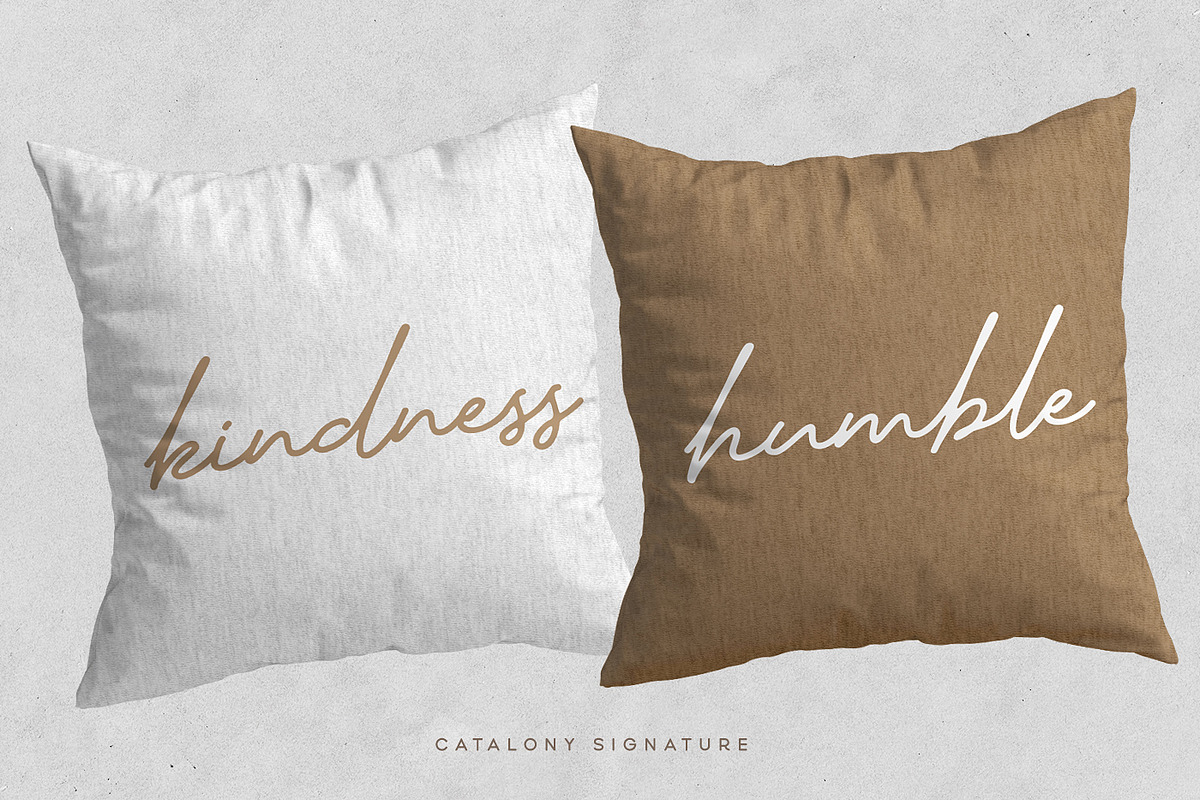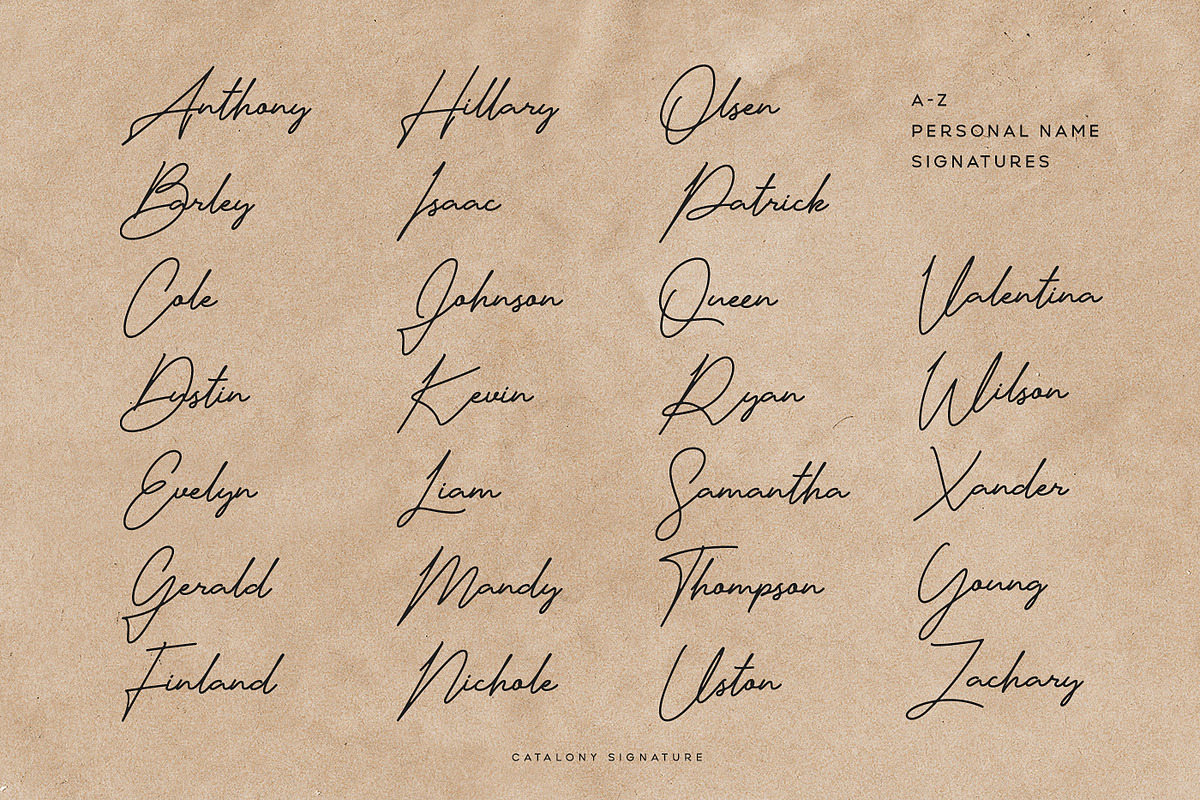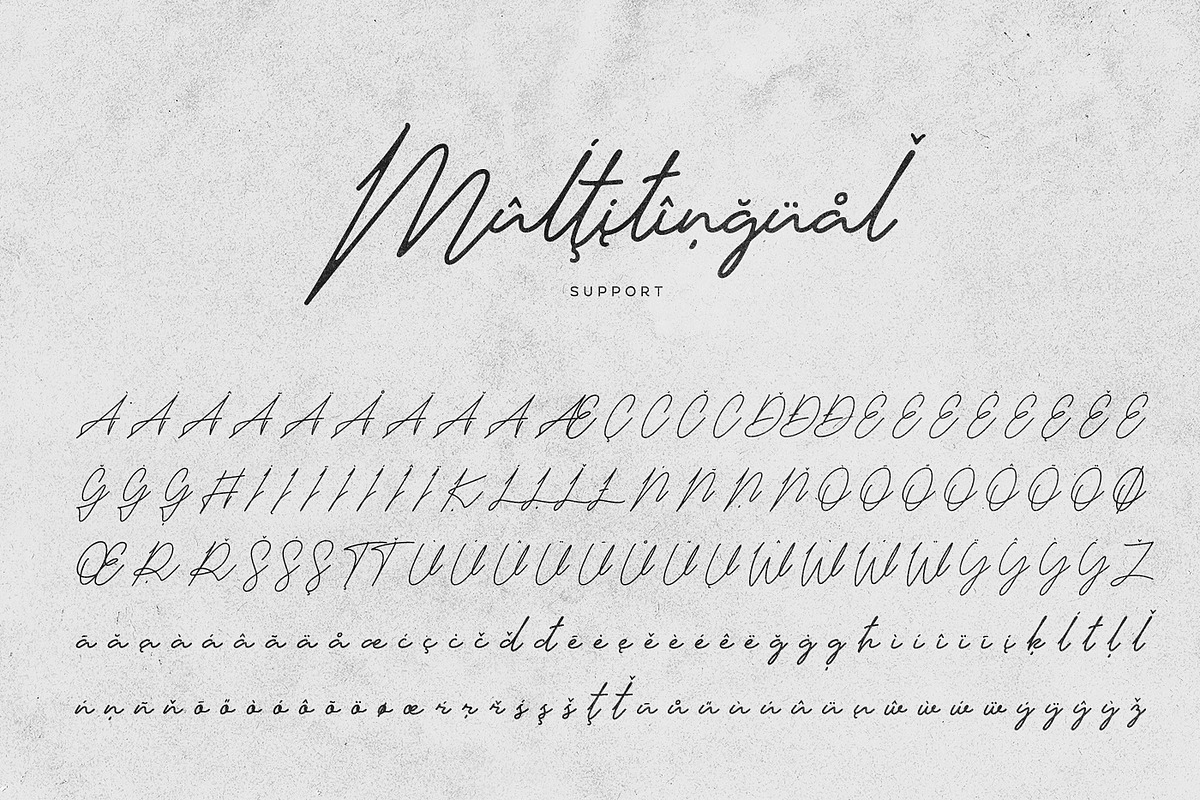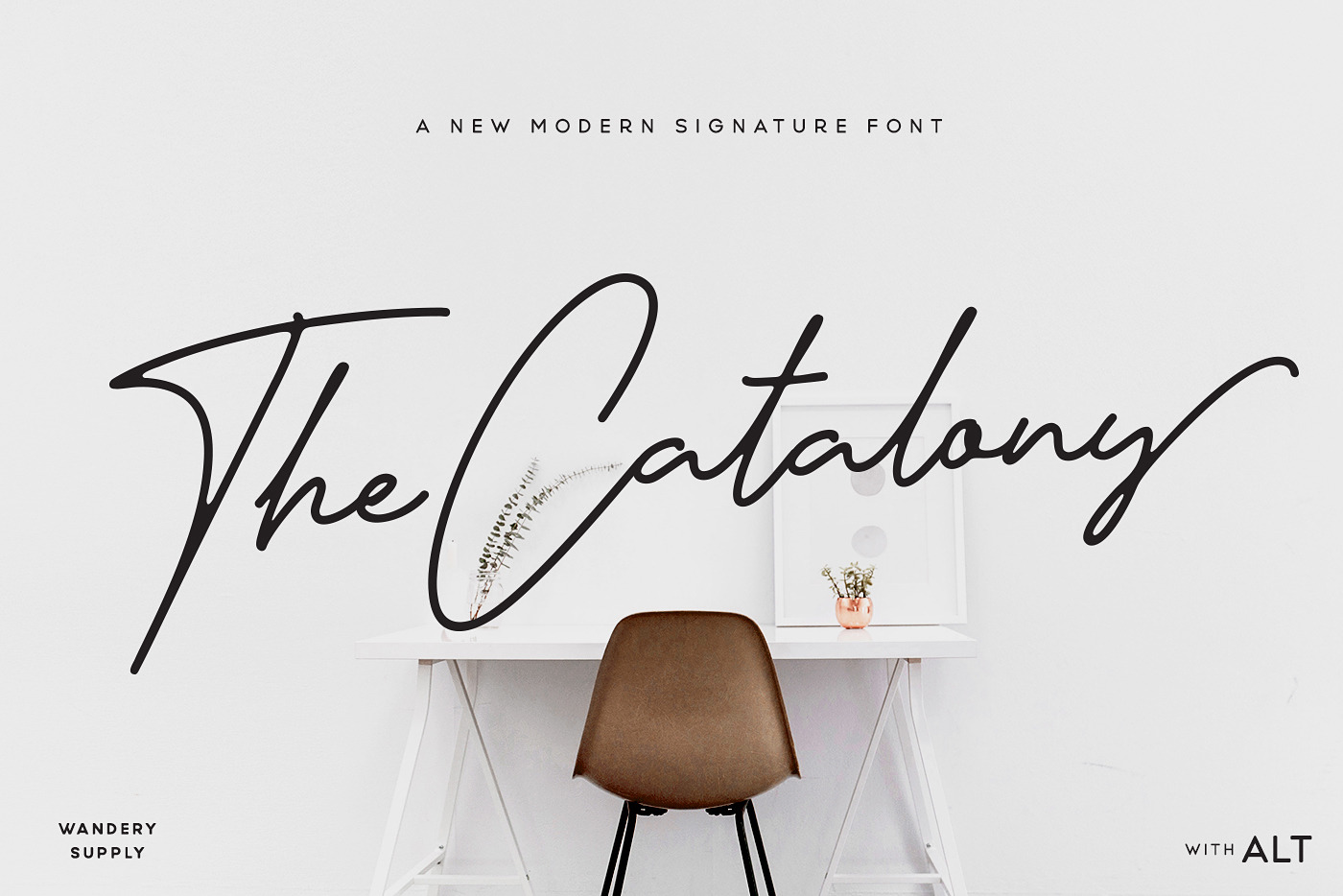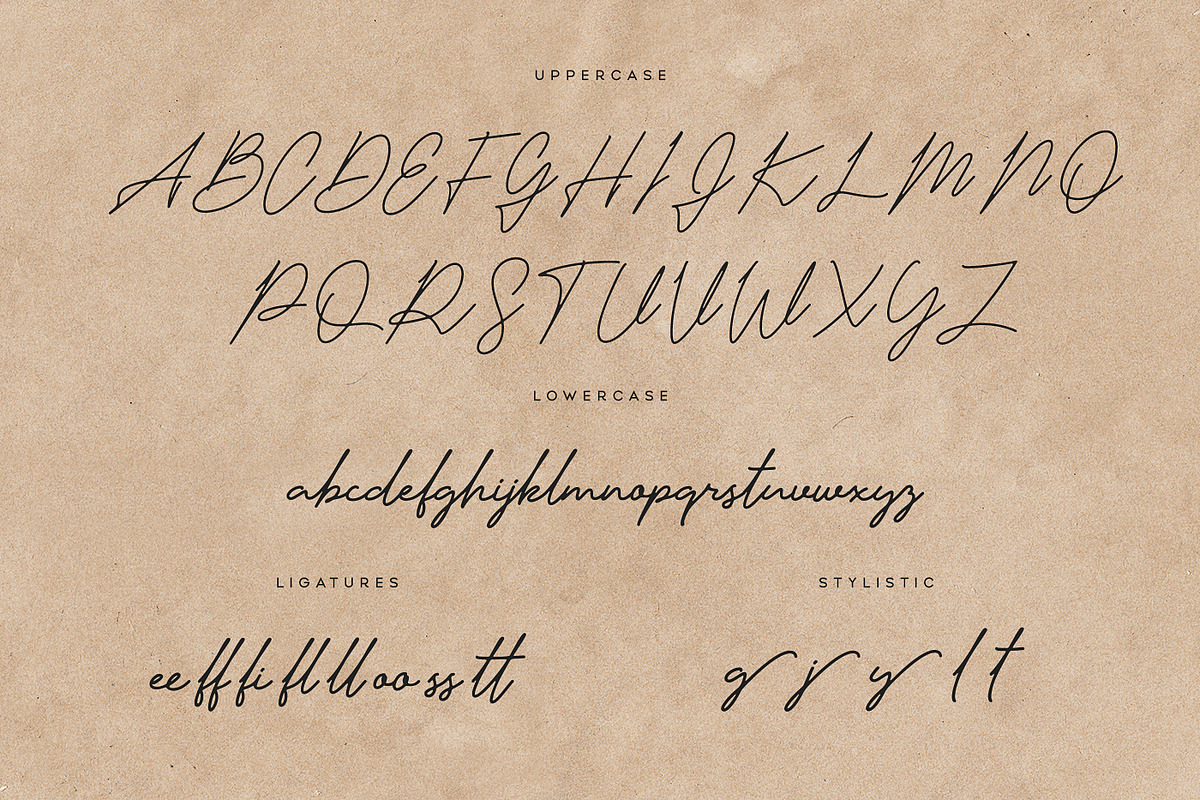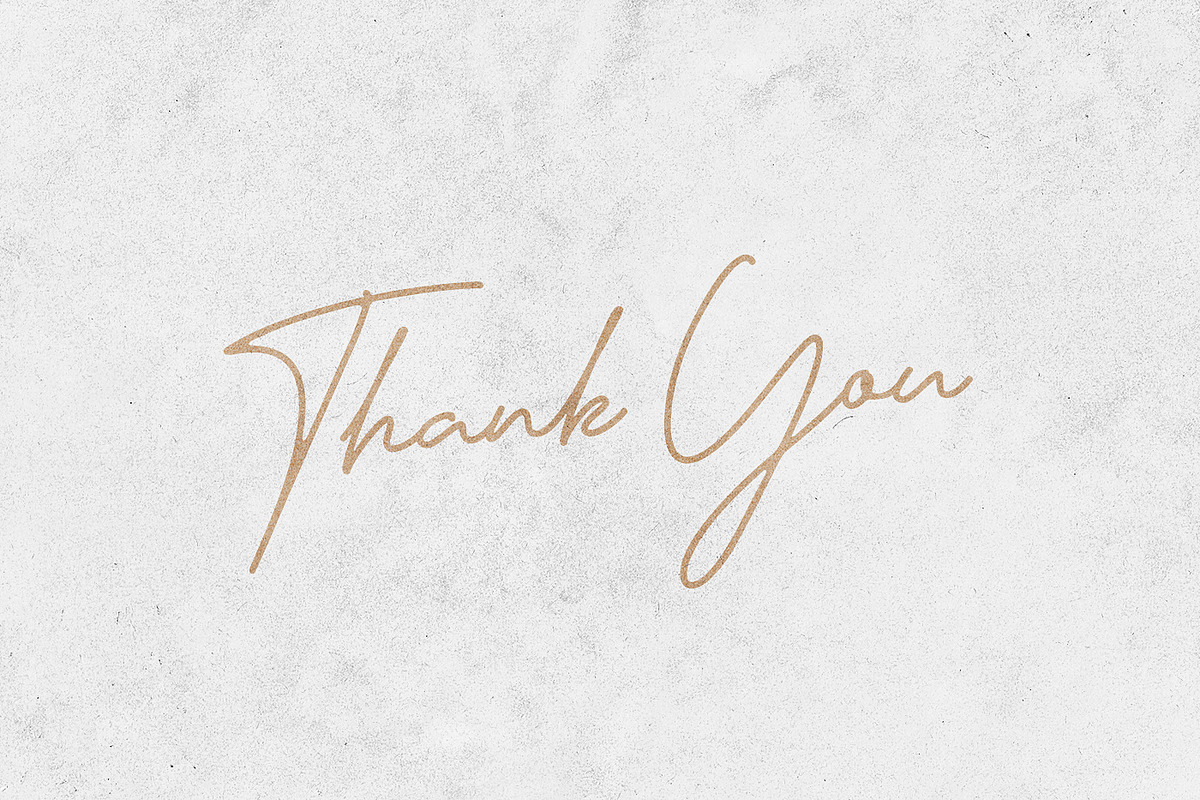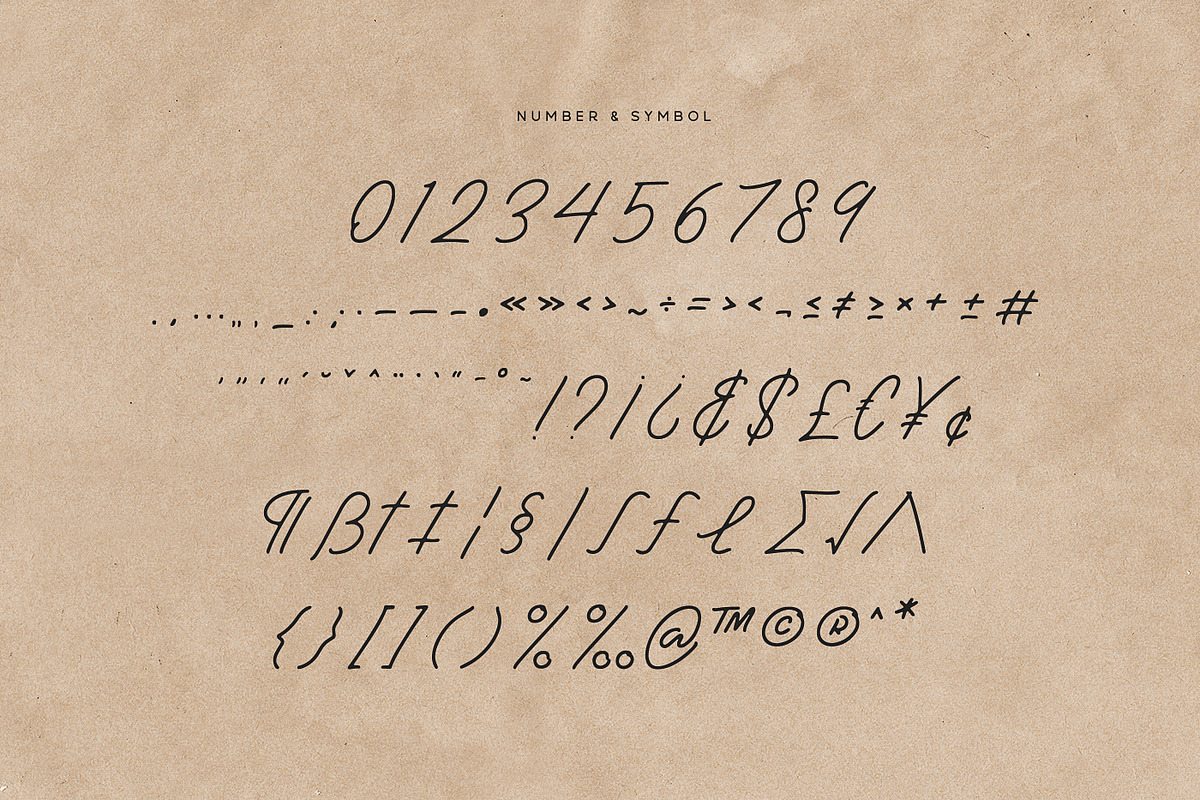
Catalony Signature Typeface
Introducing
The Catalony Signature Typeface
Catalony Signature is a minimalist and modern signature script typeface. Catalony Signature have smooth and clean rounded edges inked style, so this typeface gives a feel and look of handwritten signature style.
The font armored with OpenType Features and have Alternates characters. Catalony Signature is great choice for people looking for clean, minimalist, elegant, beauty design styles.
Suitable for any graphic designs such as branding materials, t-shirt, cover, thumbnail, print, business cards, logo, poster, t-shirt, photography, quotes .etc
- Uppercase Character
- Lowercase Character
- Alternates Character
- Punctuation & Symbol
- International Language
- Open Type Features